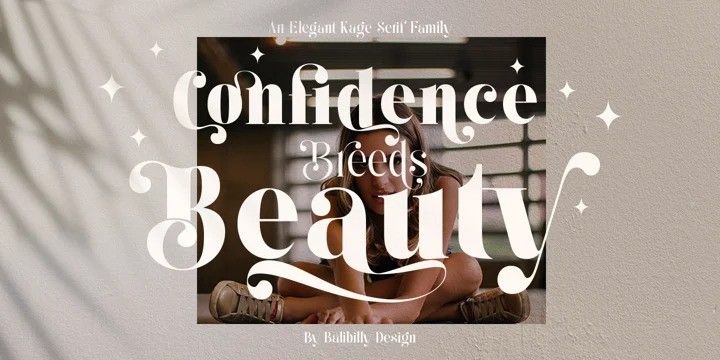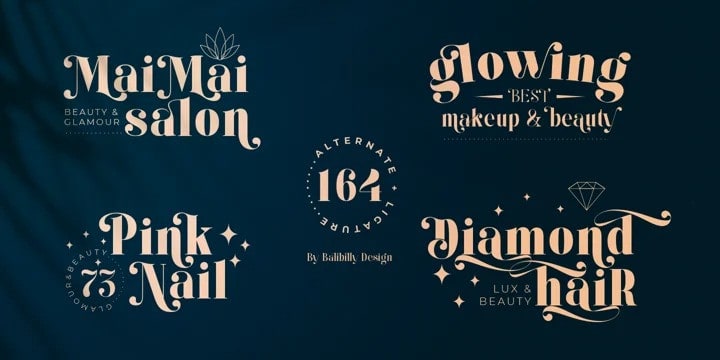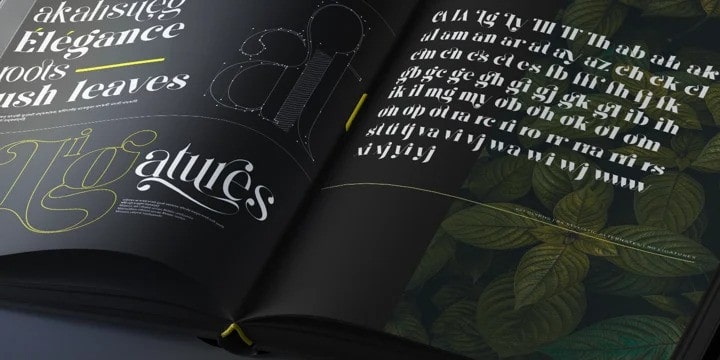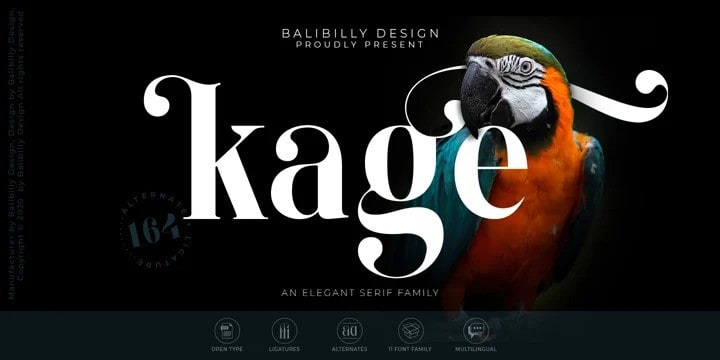
Kage Serif Font Demo
Give your project an edge with the Kage Serif Font. This font is a serif  typeface with sharp and contrasting letterforms. Made from font designer named Balibilly Design. This style has become a TREND this year. Its bold and distinguished style is ideal for headlines, logos, and shorter callouts.